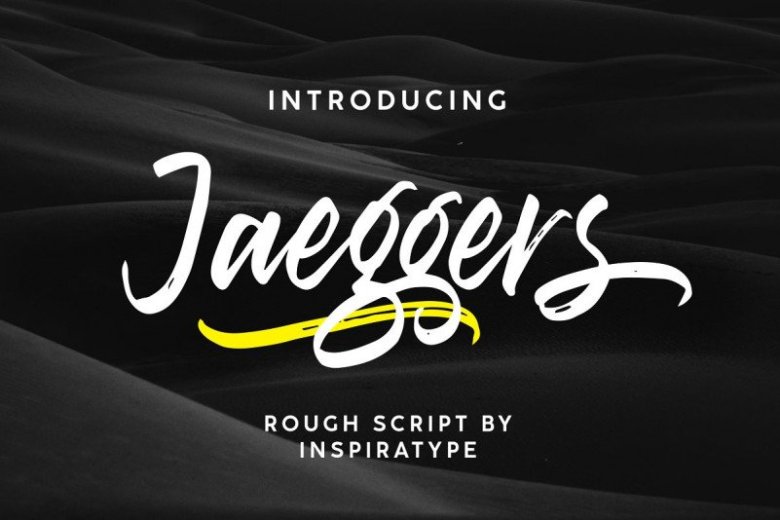
Jaeggers Script Font
Hello Everyone! Jaeggers Font with natural calligraphy style, It’s made to resemble hand scratches, so it looks like a natural style like your own hand scratches. It’s a font display that is made by hand, inspired by classic posters. Comes with uppercase, lowercase, numerals, punctuations and so many variations on each character include OpenType alternates, common ligatures and also additional swash to let you customize your designs. Perfect to use for Logotype, Letterhead, Poster, Apparel Design, Label and etc.